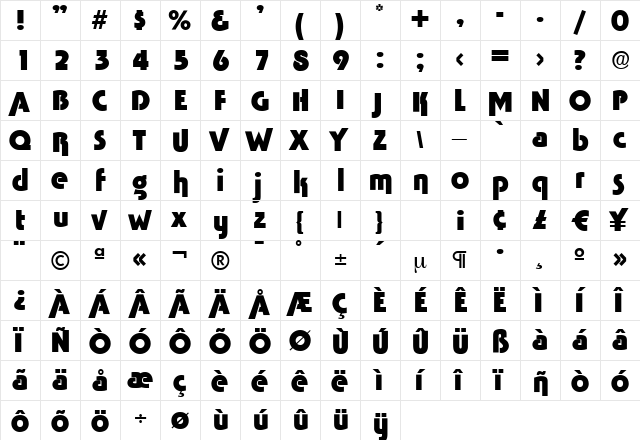
Tabasco Bold
Design Context for Tabasco Typeface
Tabasco is a composed and adaptable typeface that performs quietly and consistently across a wide range of design contexts. The heavy weight commands attention and anchors typographic hierarchies.